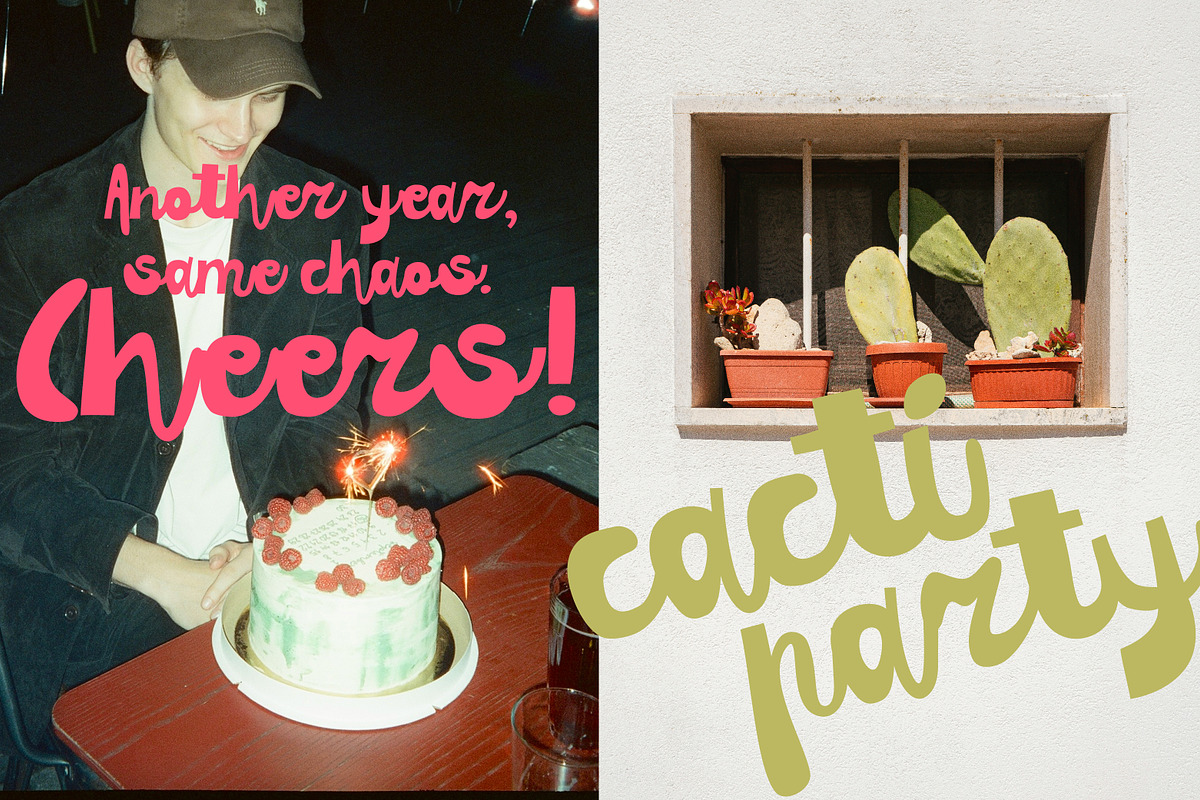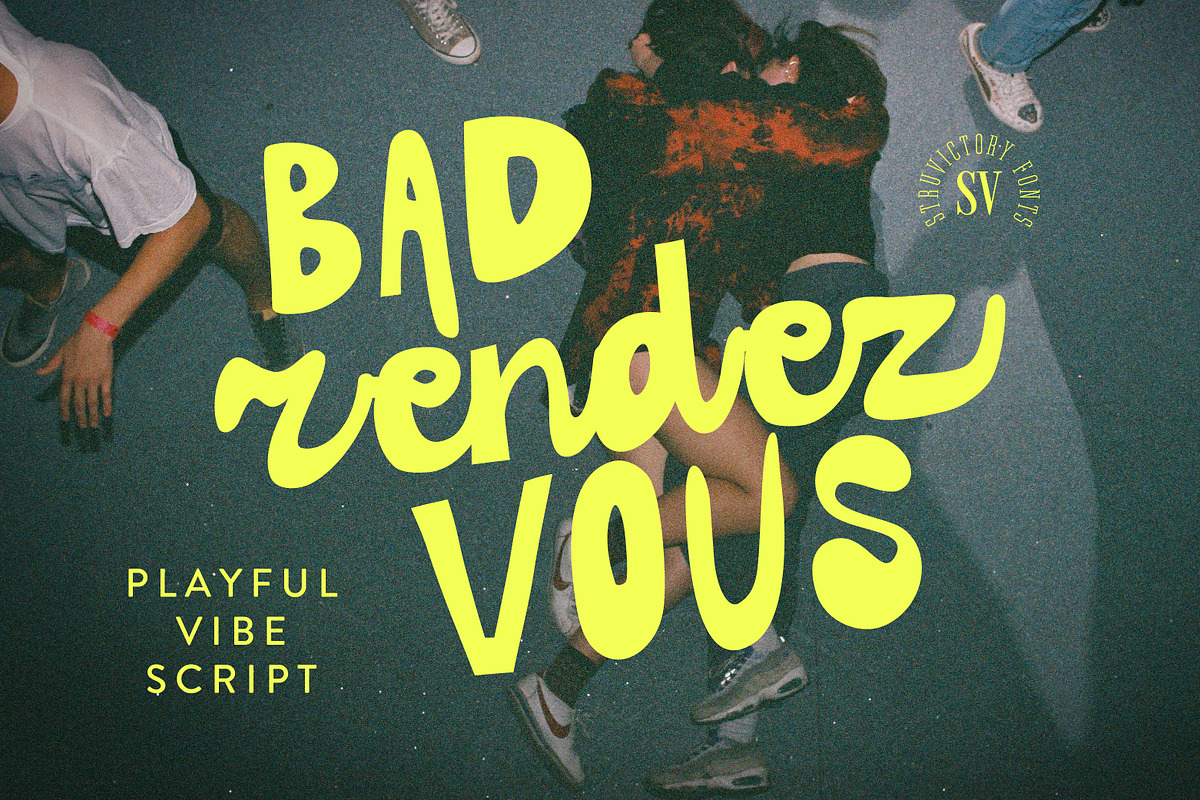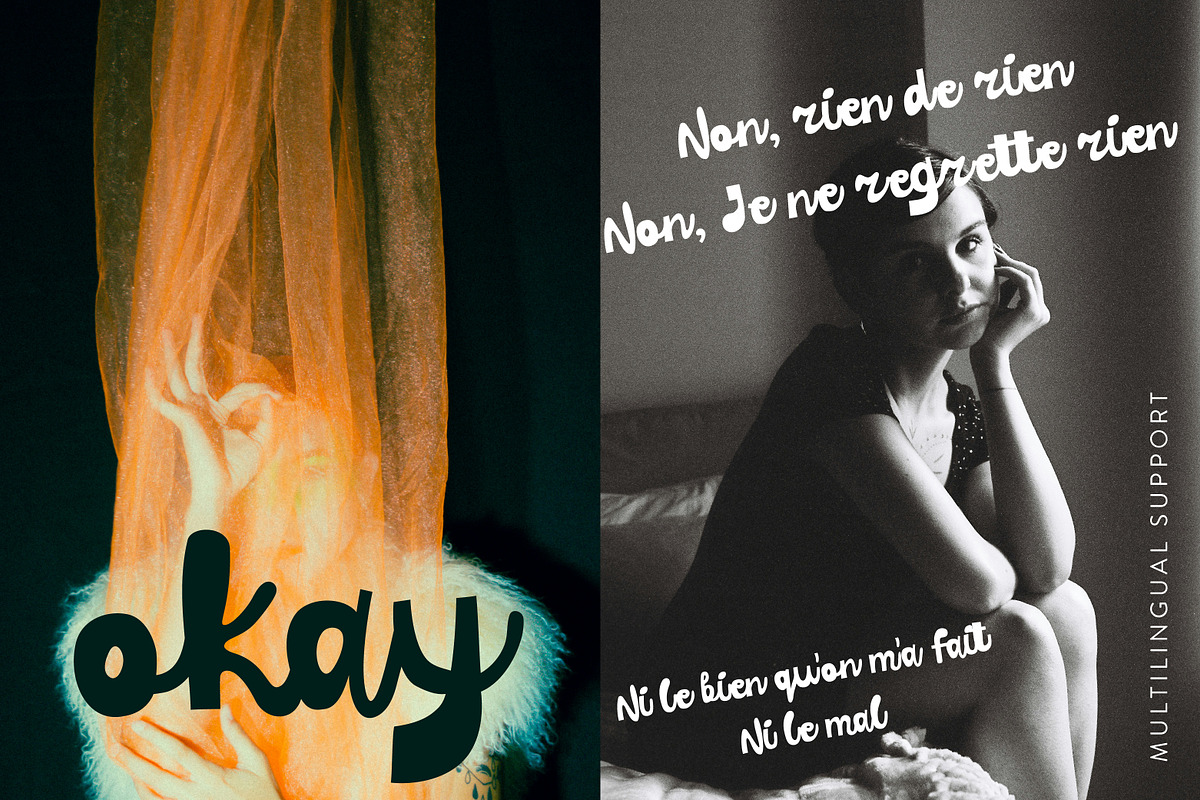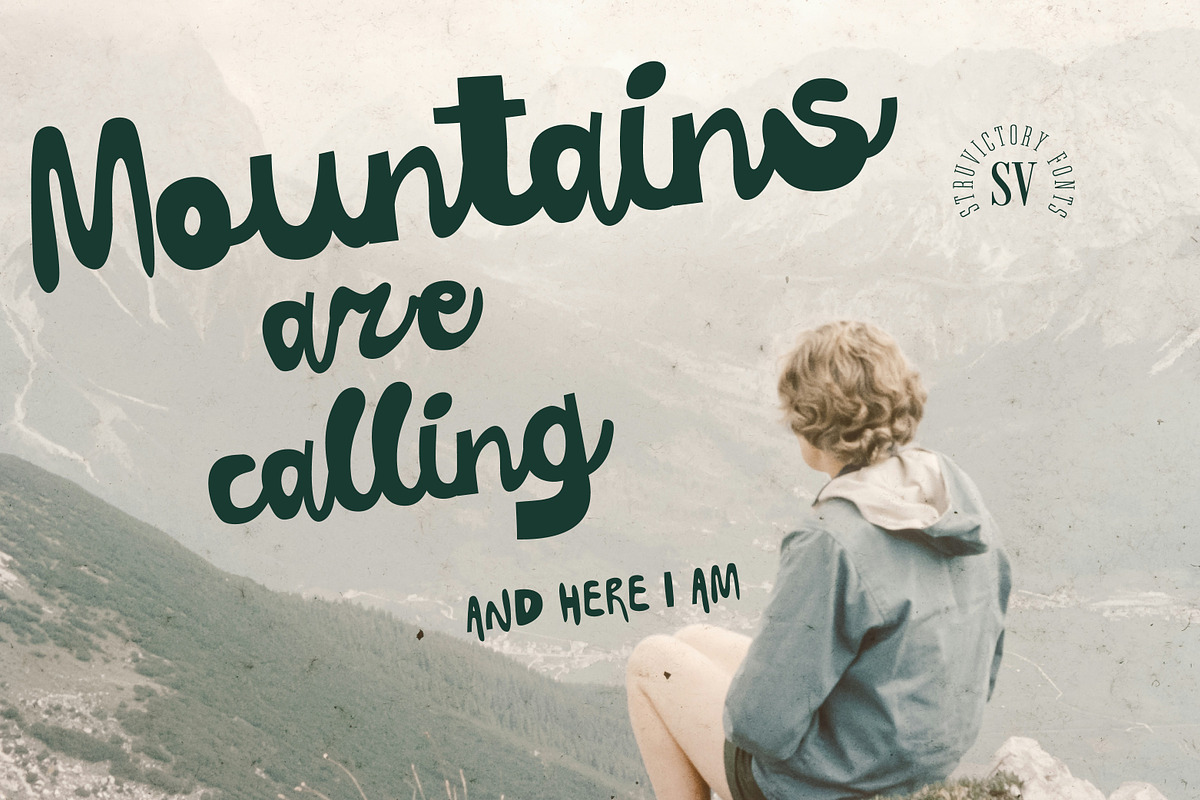
Bad Rendezvous Playful Vibe Script
Bad Rendezvous is a font that breaks the rules beautifully. Messy yet expressive, it feels like a note scribbled on a napkin in a dimly lit bar or a late-night journal entry from a restless soul. Its loose curves and "lazy" strokes create an effortless rawness and spontaneity. Perfect for trendy posters, album covers, vintage signage, coffee brands, and anything that calls for a touch of artistic chaos. Bad Rendezvous is for those who embrace imperfection and turn it into style.